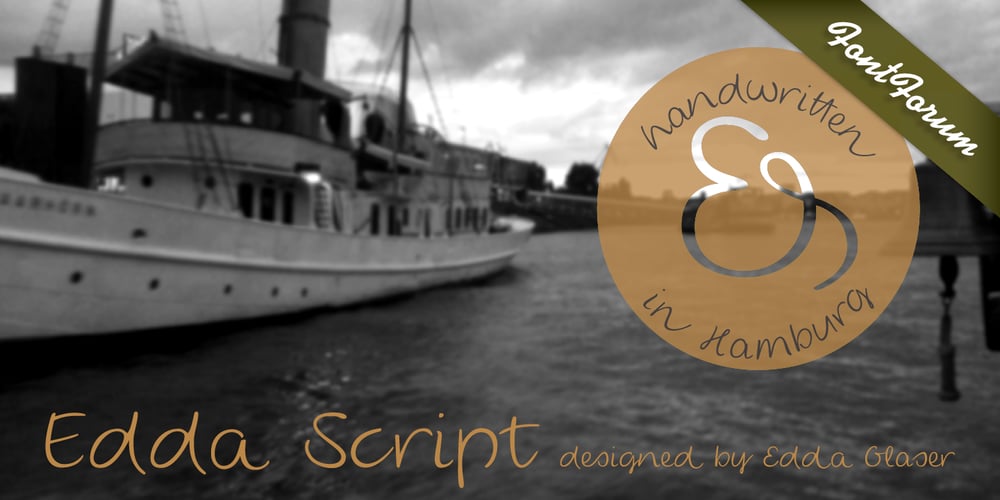
Edda Script Font Family was designed by Edda Glaser and published by URW Type Foundry. Edda Script contains 1 styles and family package options. Edda Glaser’s digitized handwriting is a beautiful script containing many ligatures and alternates. The first lines were drawn in 2012 – however, there are now over 850 glyphs! The elegant and light typeface combines both connected and separate characters, in this way gaining a dynamic flow. The Open Type Features allow you to choose glyph alternates for the beginning and end of words. The script also contains lots of numbers as old-style and titling figures as well as sub- and superscript figures. The many alternates and swash uppercase letters let you create a versatile look which suits designing magazine and other print media.